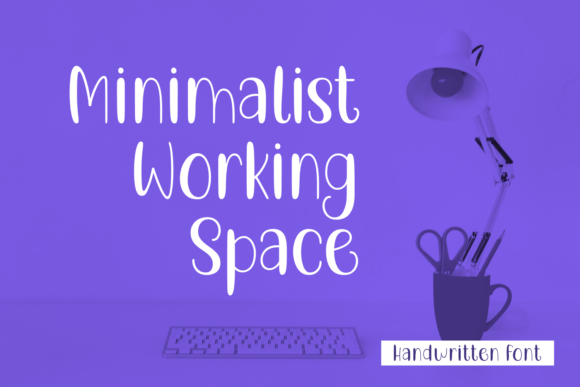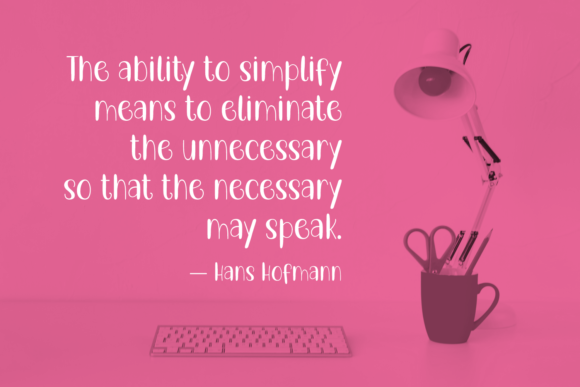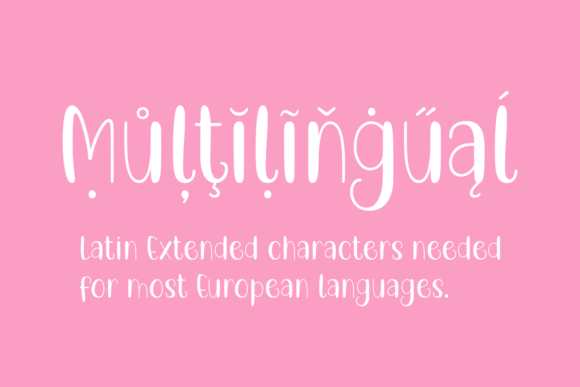
About Minimalist Working Space Font
Minimalist Working Space is a simple and round lettered handwritten font. Not too thin and not too thick, balanced and varied, this font was designed to enhance the beauty of your projects.